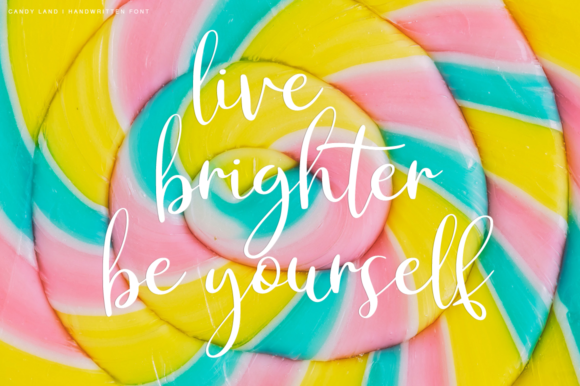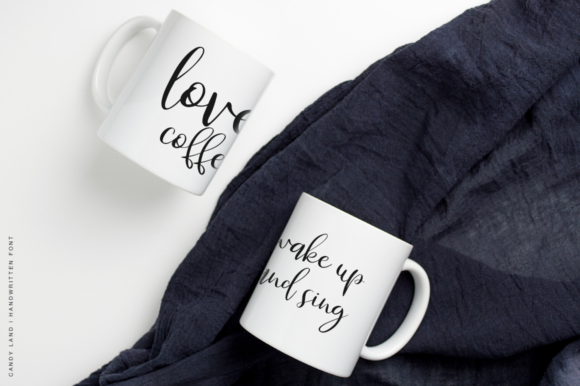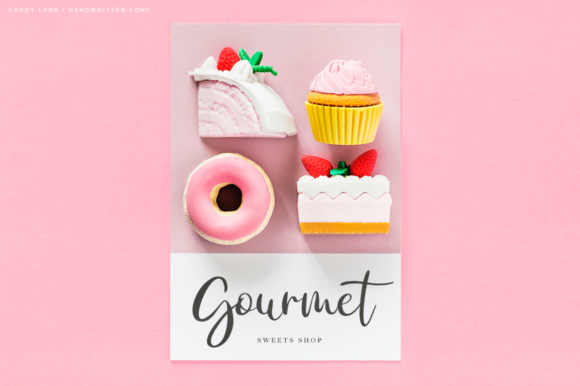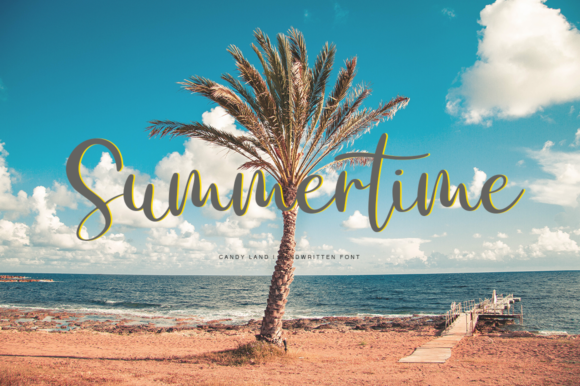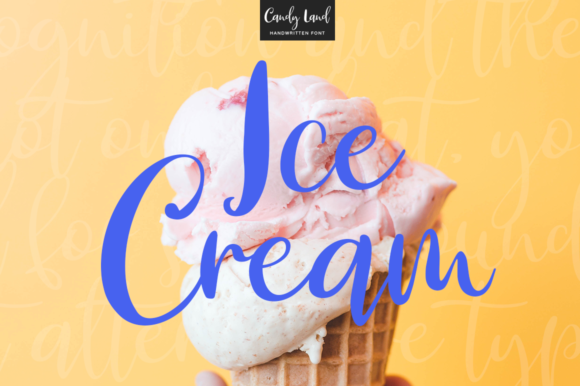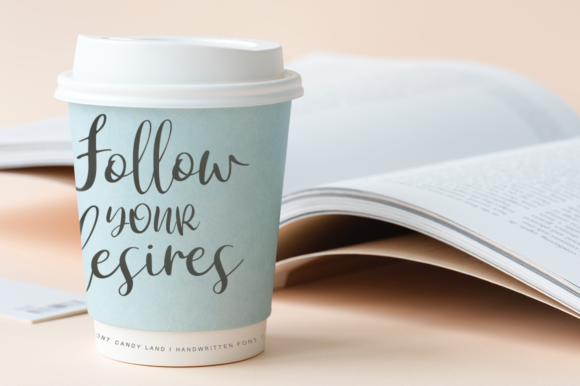
Candy Land Font
About Candy Land Font
Candy Land script is a new, fresh, handmade calligraphy font.
Candy Land is ideal for branding and decorating your projects. Candy Land is also perfect for wedding invitations or a blog.